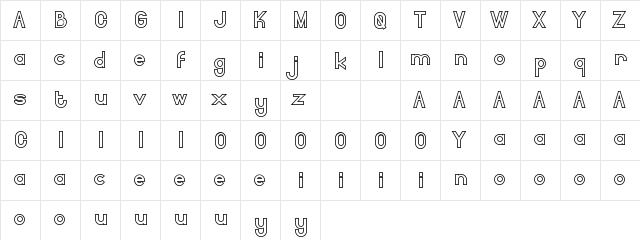
Fairry E Demo Serif Outline Regular
| Foundry | NihStudio |
| Designer | Nouval & Suci |
Design Context for Fairry E Demo Serif Outline Typeface
Fairry E Demo Serif Outline is built around its visual character rather than neutral utility — its distinctive forms are designed to make an impression at display sizes.
Font Pairing: Pair with a clean neutral sans-serif for body copy to let Fairry E Demo Serif Outline's character lead without overwhelming the composition.
Pro Tip: Treat Fairry E Demo Serif Outline as the centrepiece of your typographic hierarchy. One strong heading set in a decorative face can carry an entire layout.